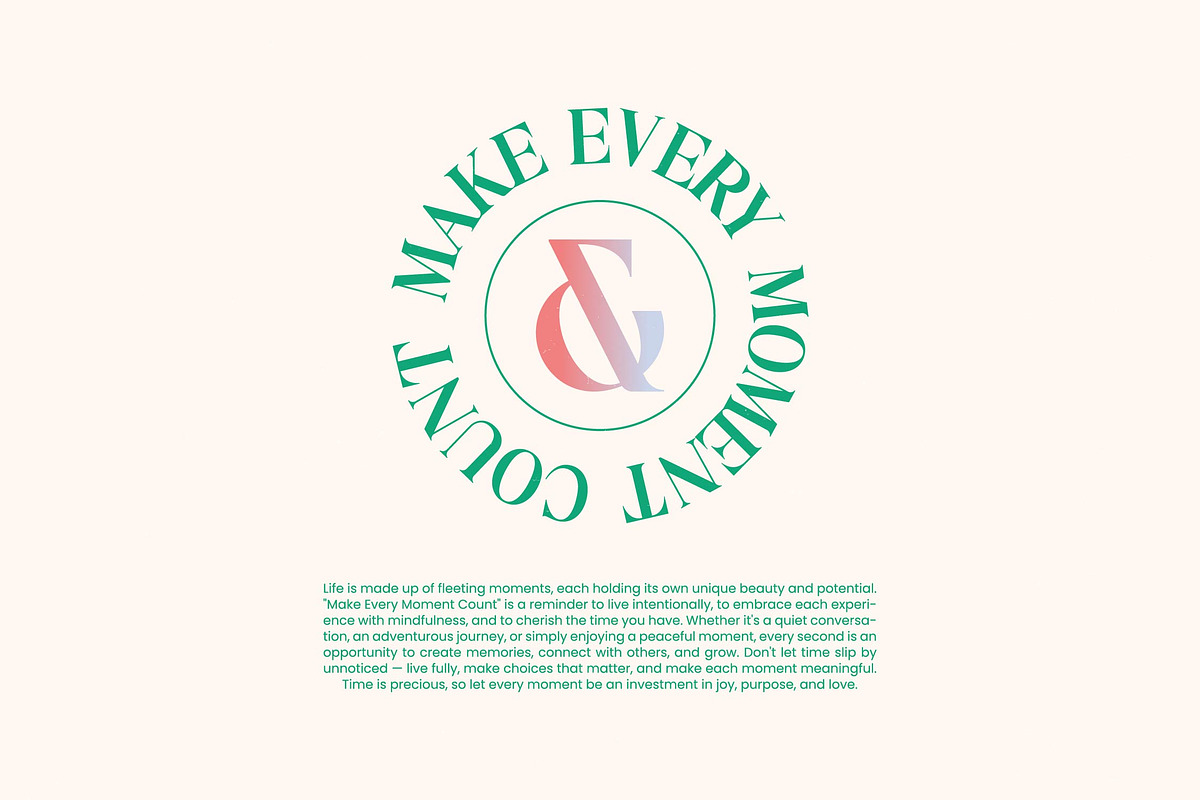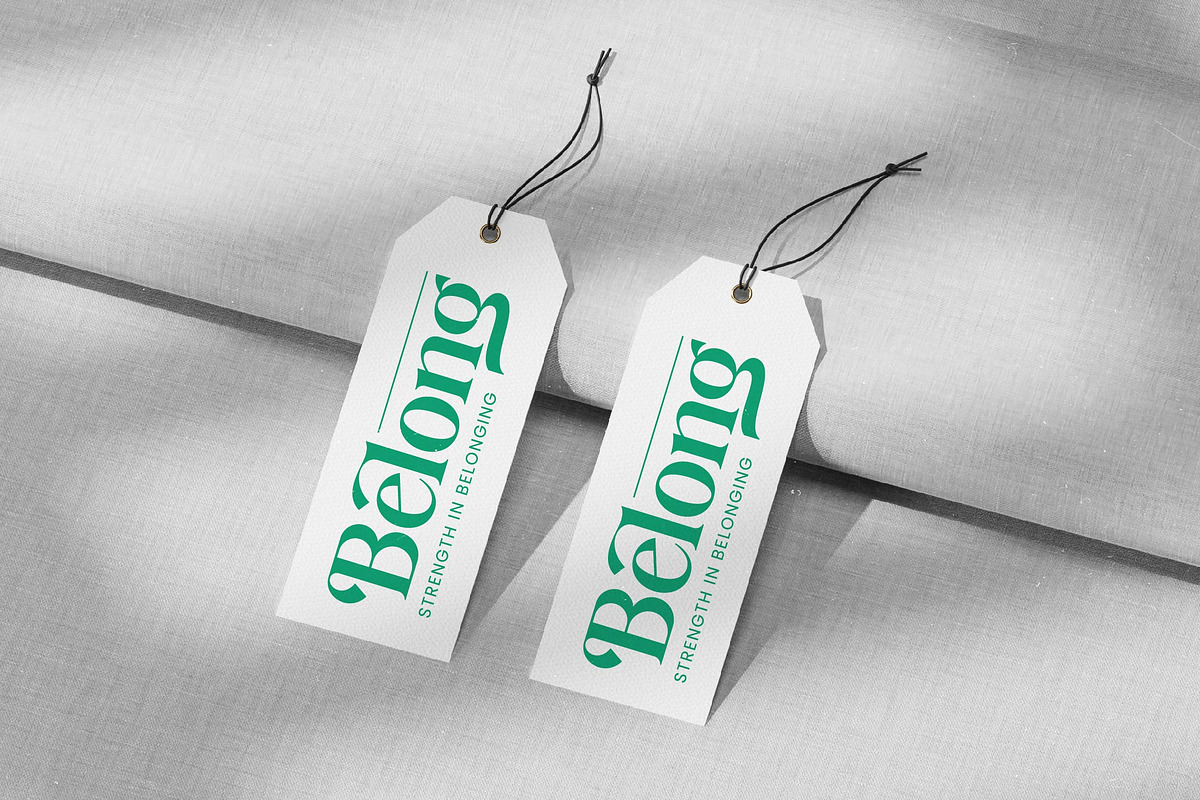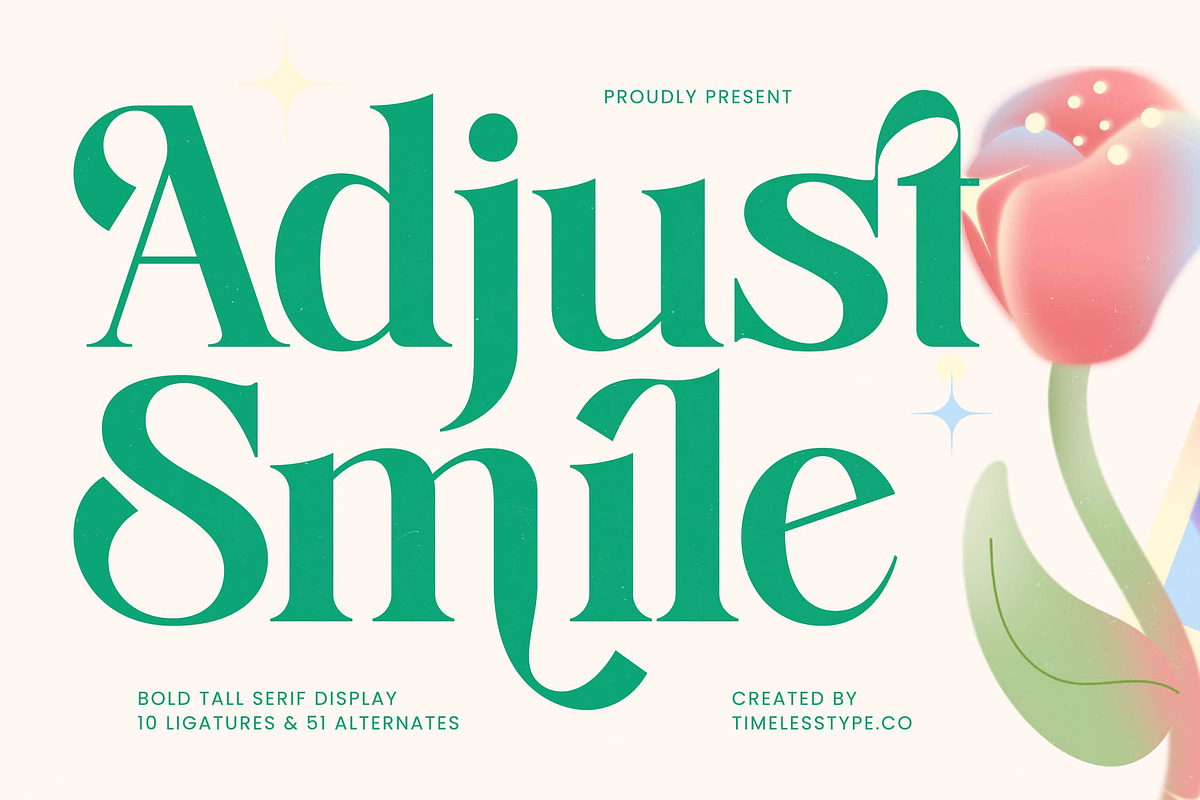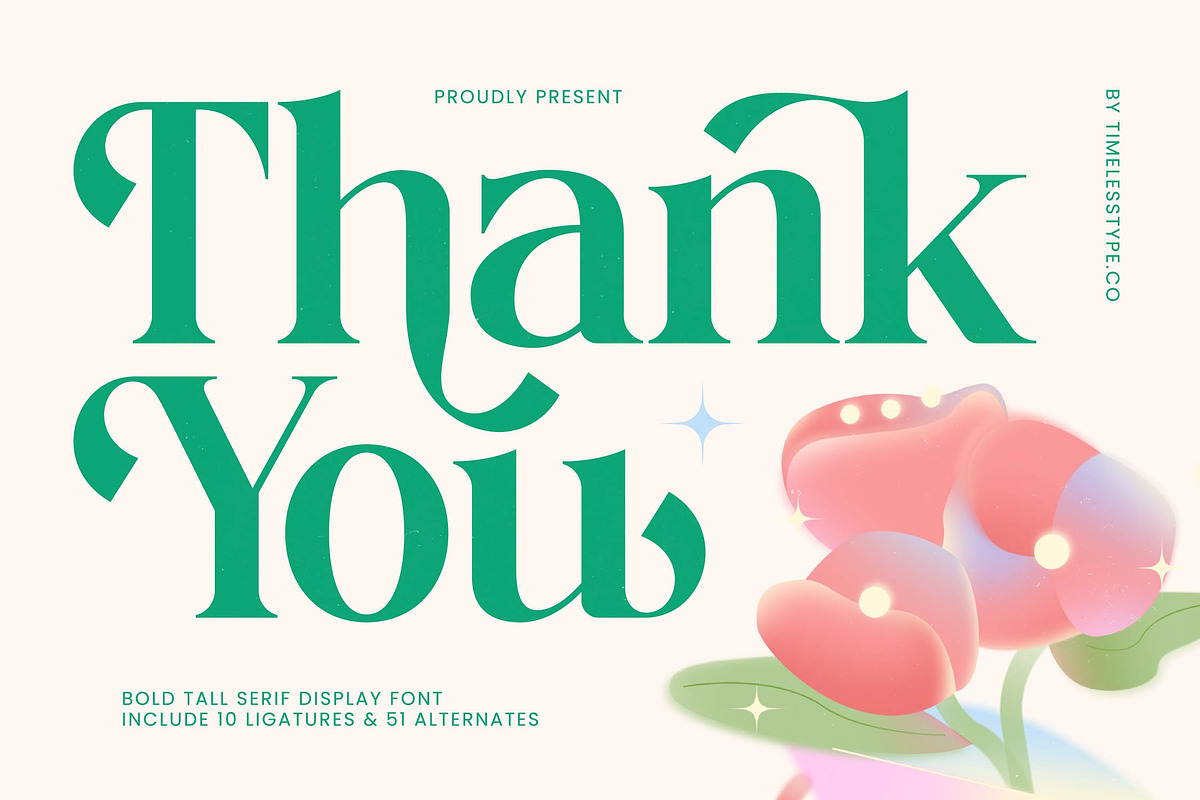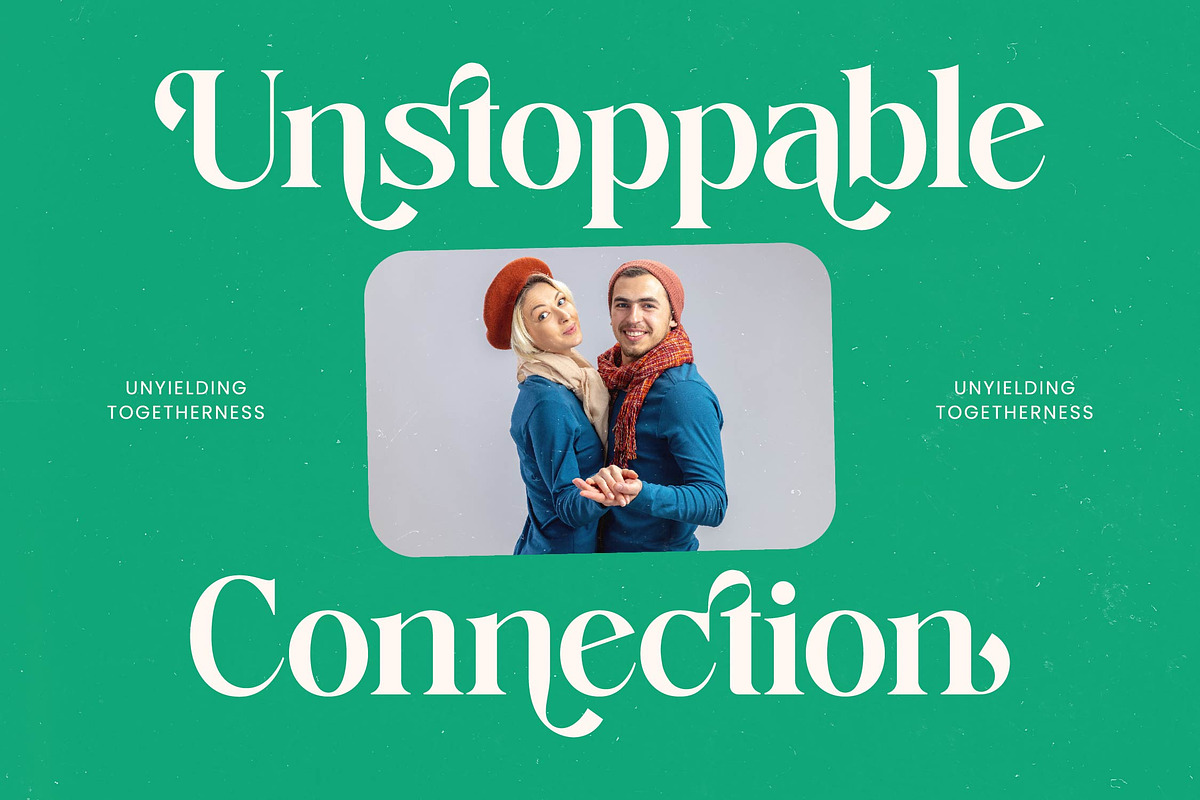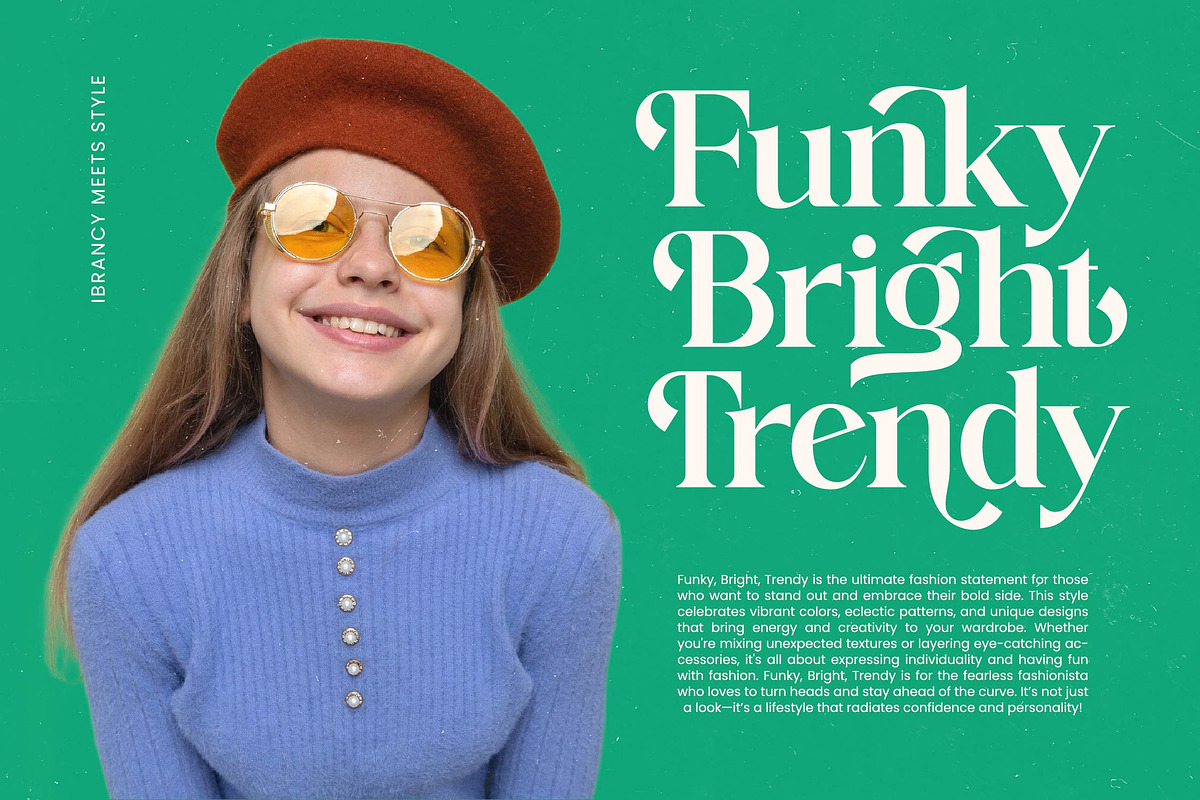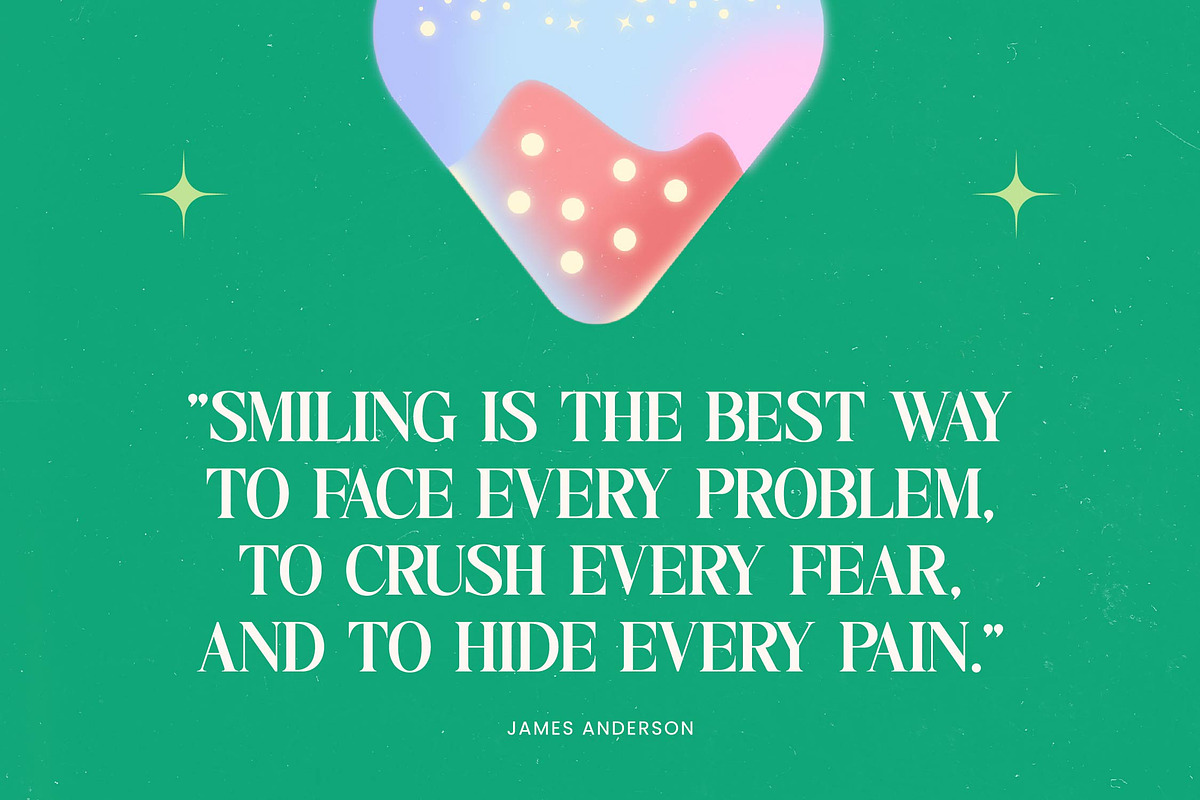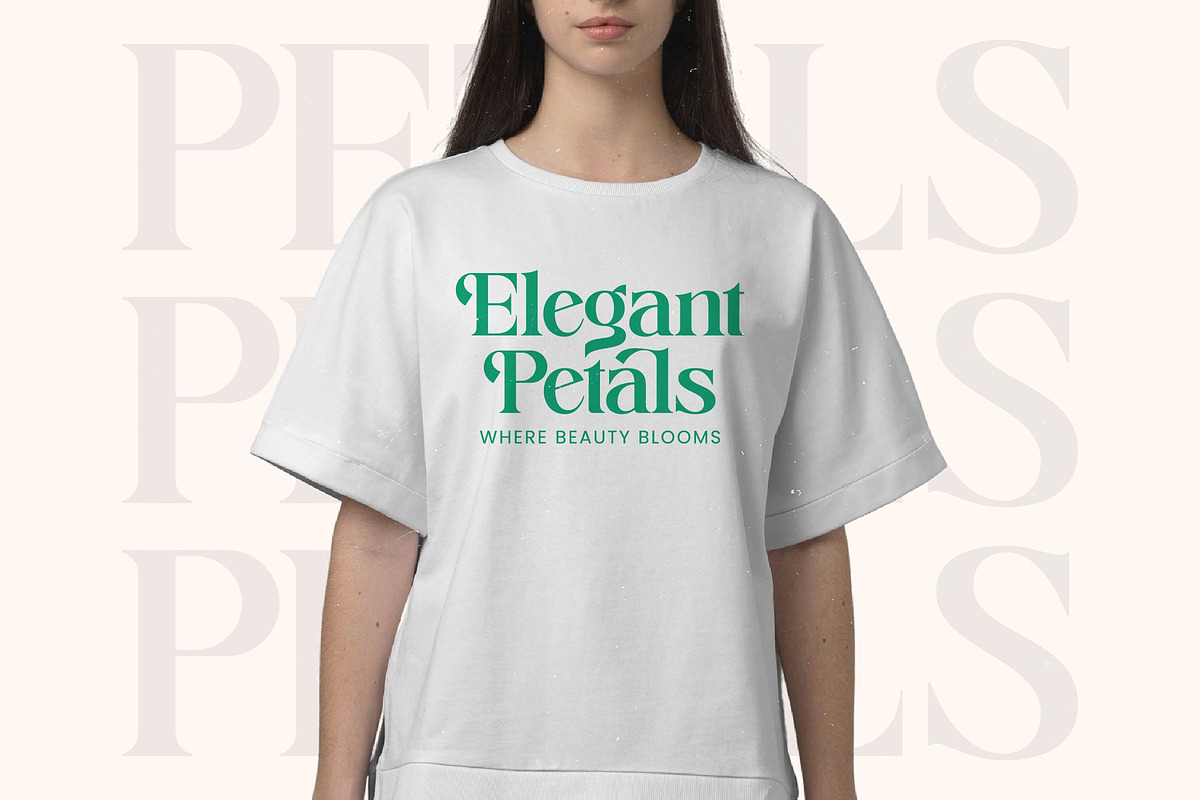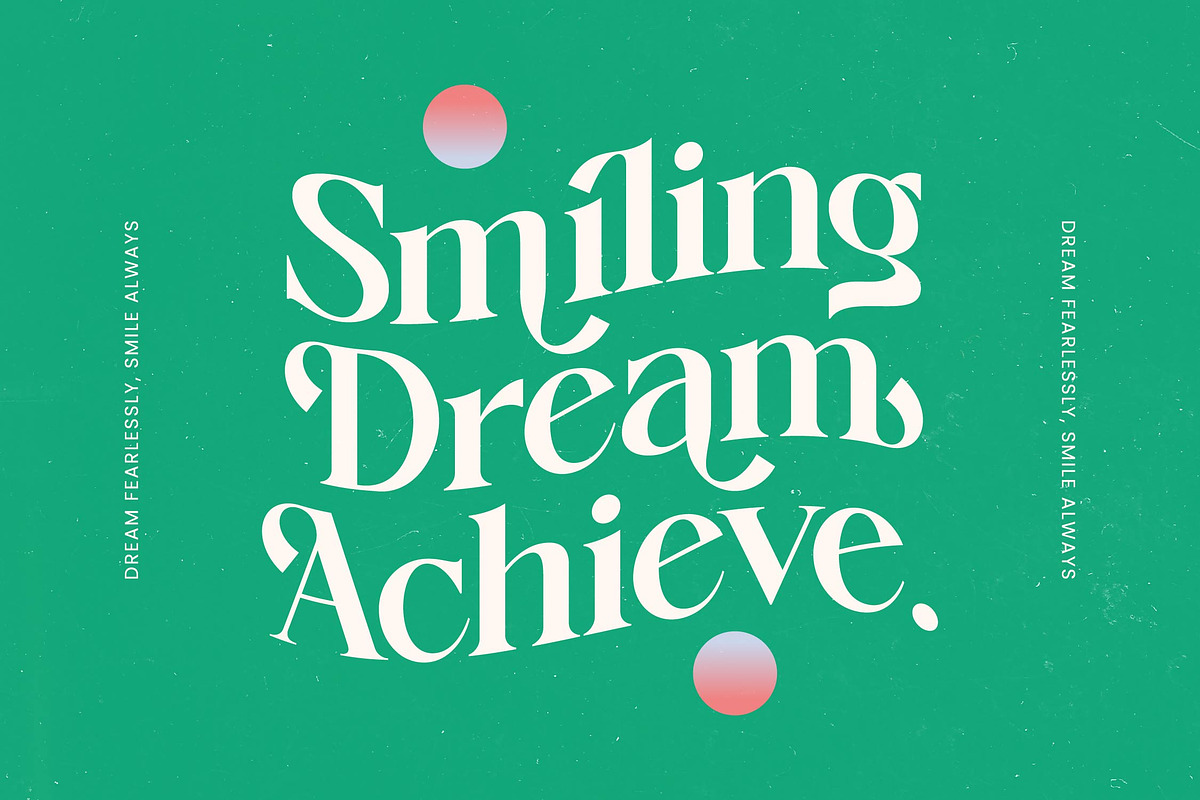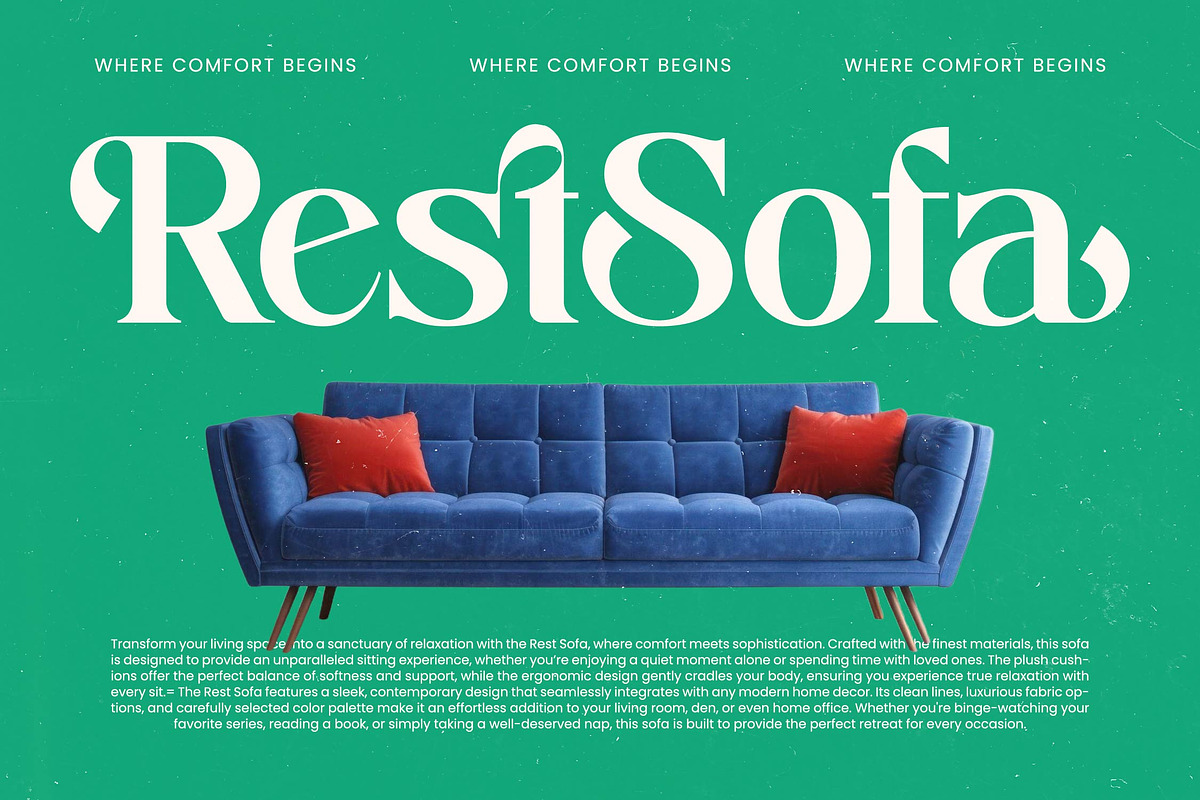
Adjust Smile Modern Tall Serif
Adjust Smile is a masterclass in typographic elegance, blending tall, sophisticated proportions with a playful spirit that captures the eye instantly. This font brings a refreshing sense of joy and luxury to every design it touches, making it a must-have for discerning creators.
Inspired by the graceful curves of nature and the timeless charm of high-fashion editorial layouts, the atmosphere of this typeface is both organic and refined. It evokes a feeling of a blossoming spring morning, where every character is crafted to flow with the rhythm of modern aesthetics and classic poise.
This modern serif display delivers a powerful branding impact through its unique high-contrast serif details and tall letterforms. As an essential luxury typography tool, it functions as a premium editorial font that demands attention while maintaining a sophisticated and welcoming personality for high-end projects.
Perfectly aligned with the current modern serif trend, this typeface answers the call for more character-driven typography in the digital age. It fits seamlessly into the wave of editorial display fonts that prioritize personality and uniqueness over standard, sterile designs.
From high-end logo design and cohesive branding suites to sophisticated editorial layouts, this font excels in diverse environments. It is the perfect choice for luxury packaging, romantic wedding stationery, and avant-garde fashion magazines that require a touch of modern class.
The technical depth of this font includes a wide array of ligatures and alternates that allow for custom typographic expressions. With full multilingual support and a comprehensive set of international characters, it ensures global versatility and professional performance for any creative endeavor.
- Ligature 10 Alternate 51